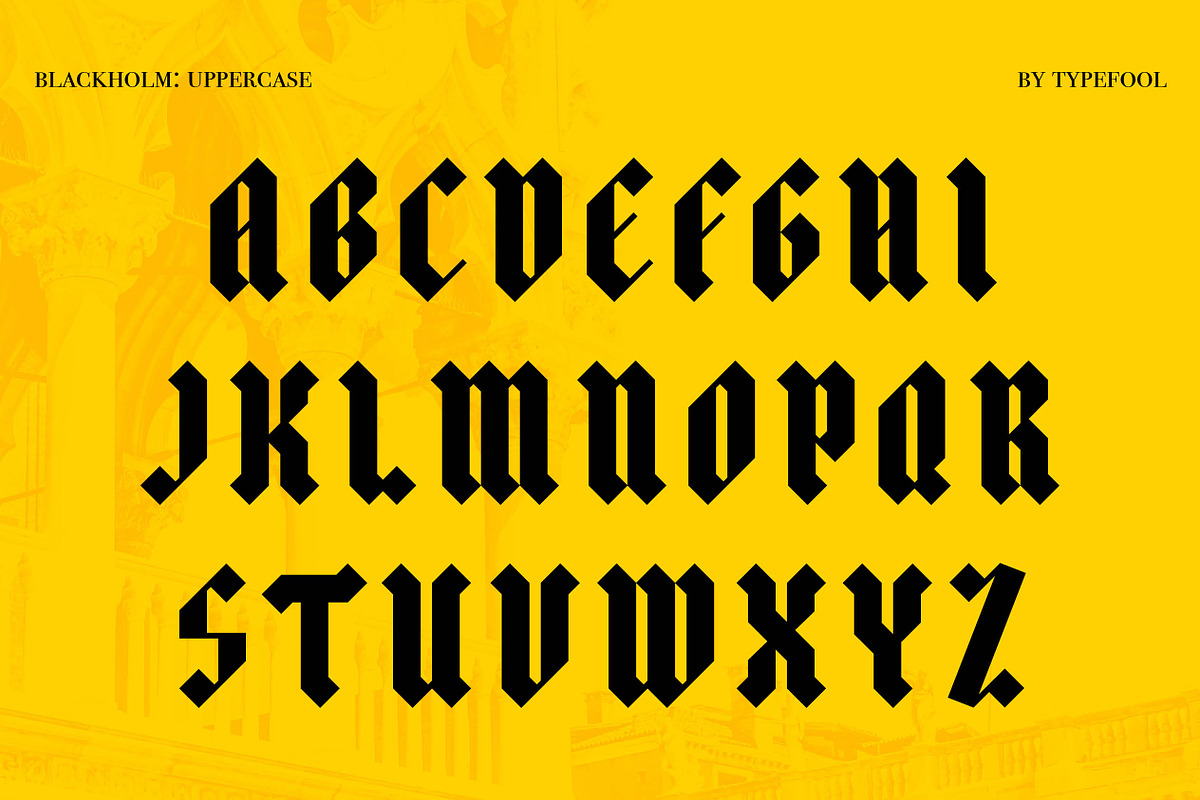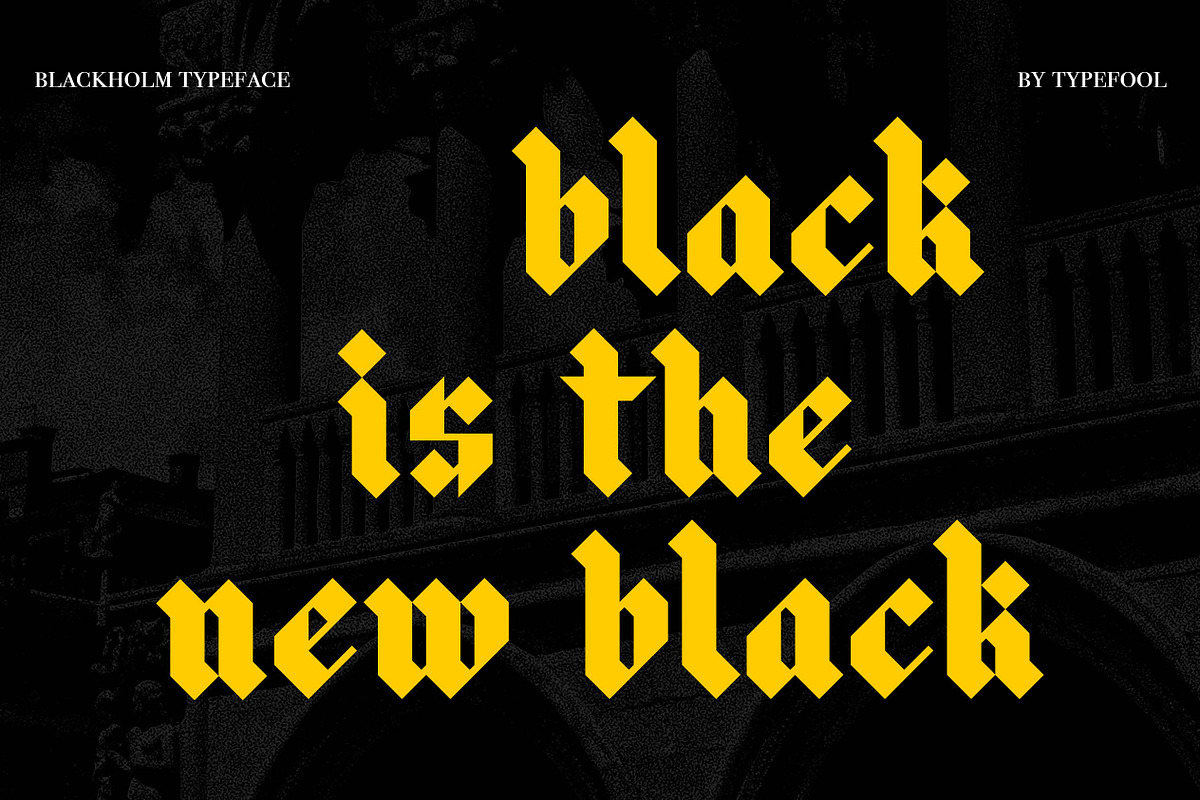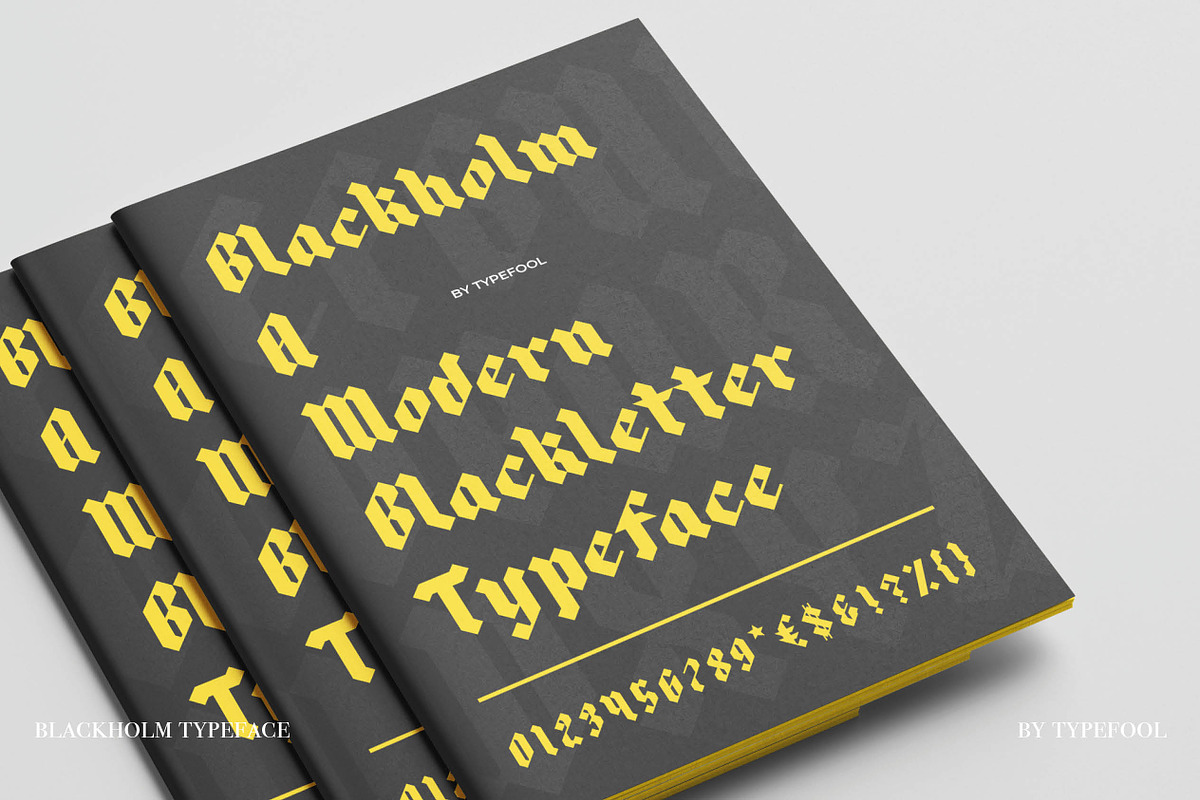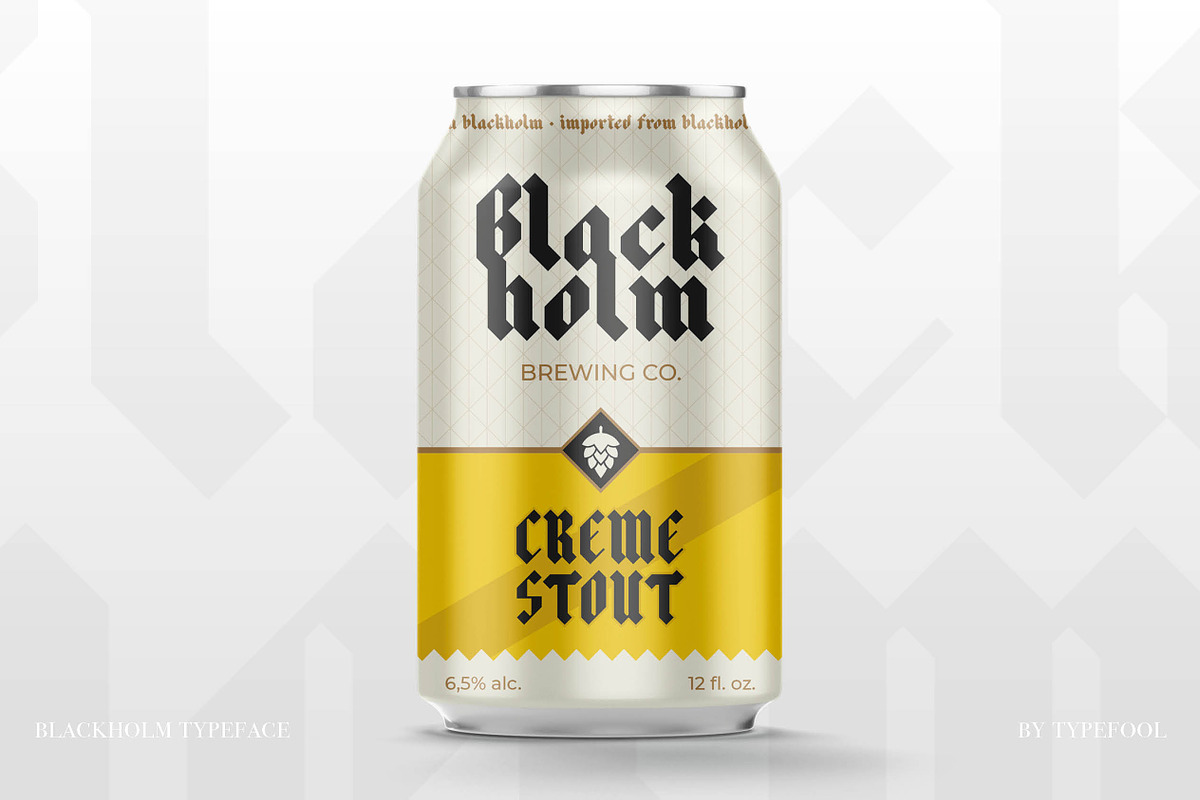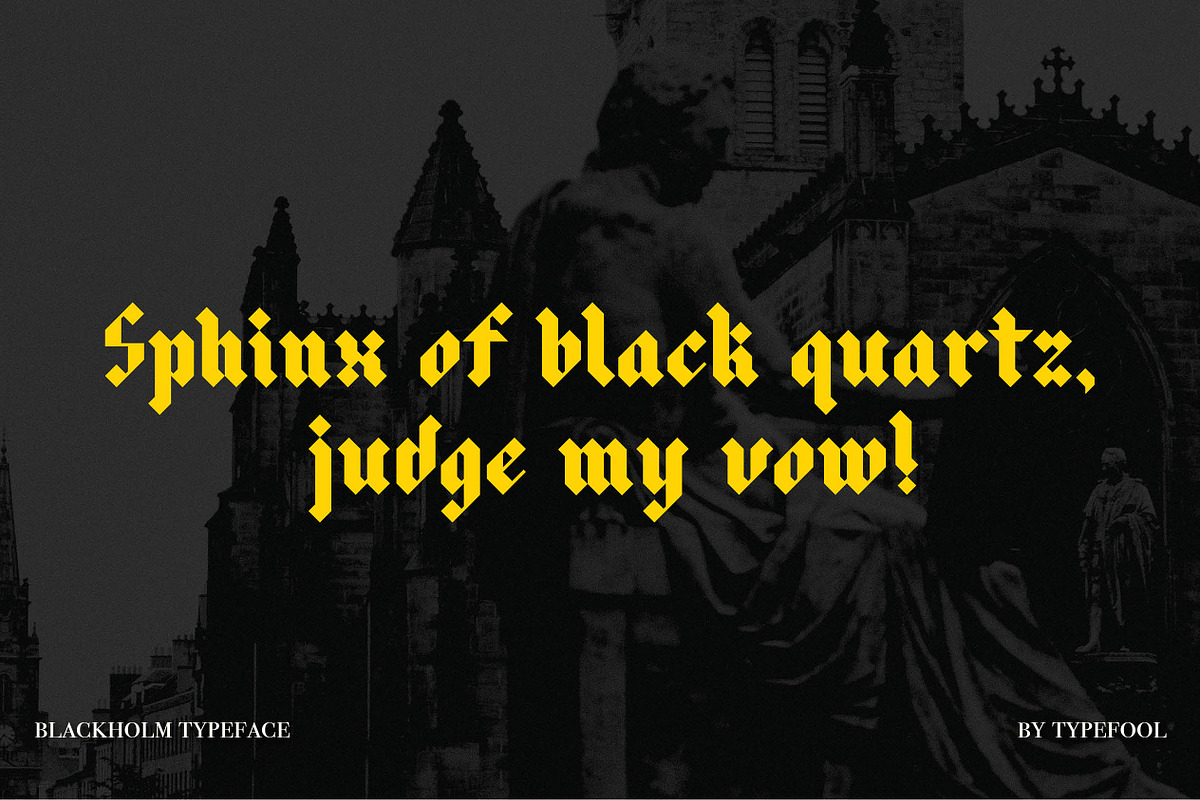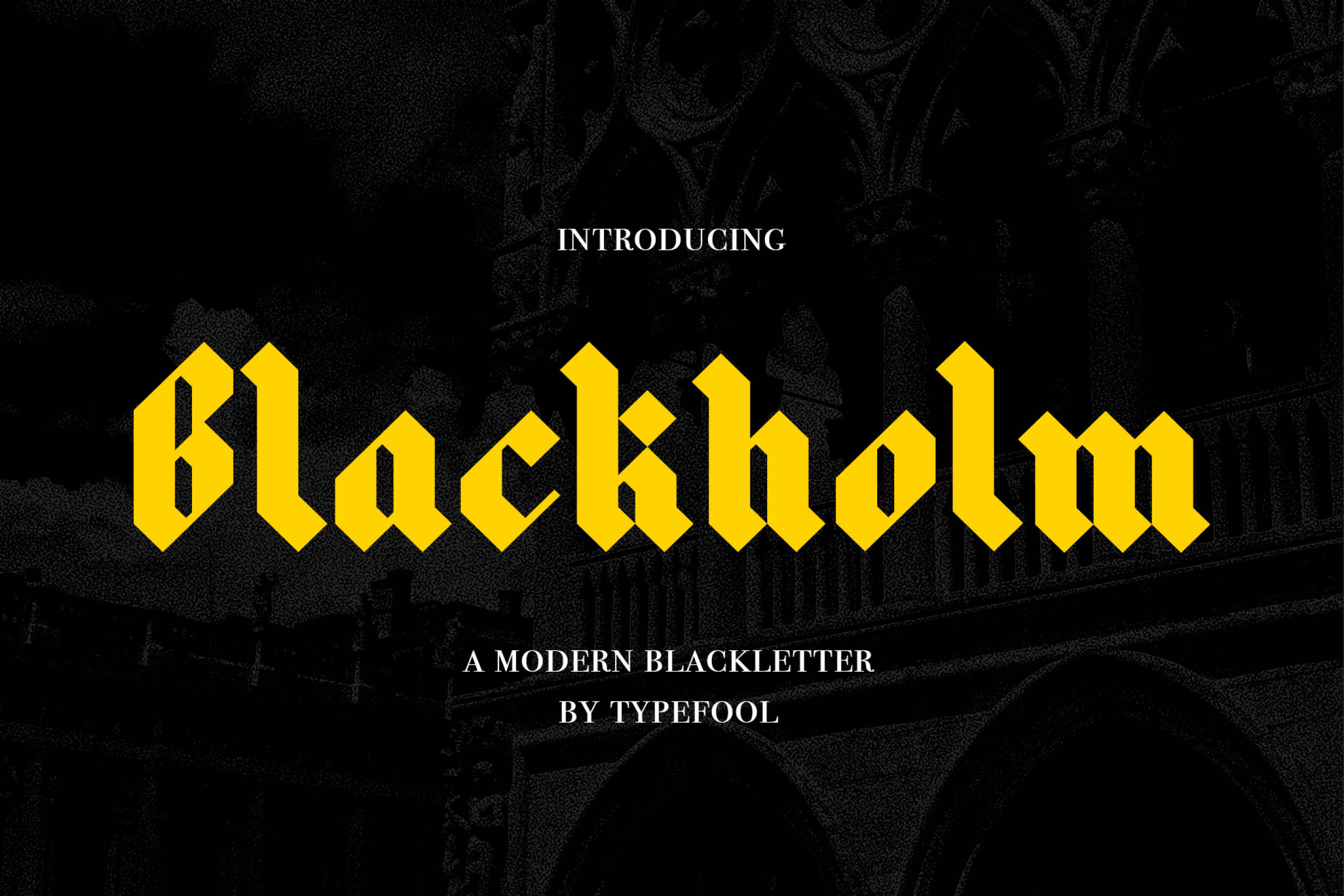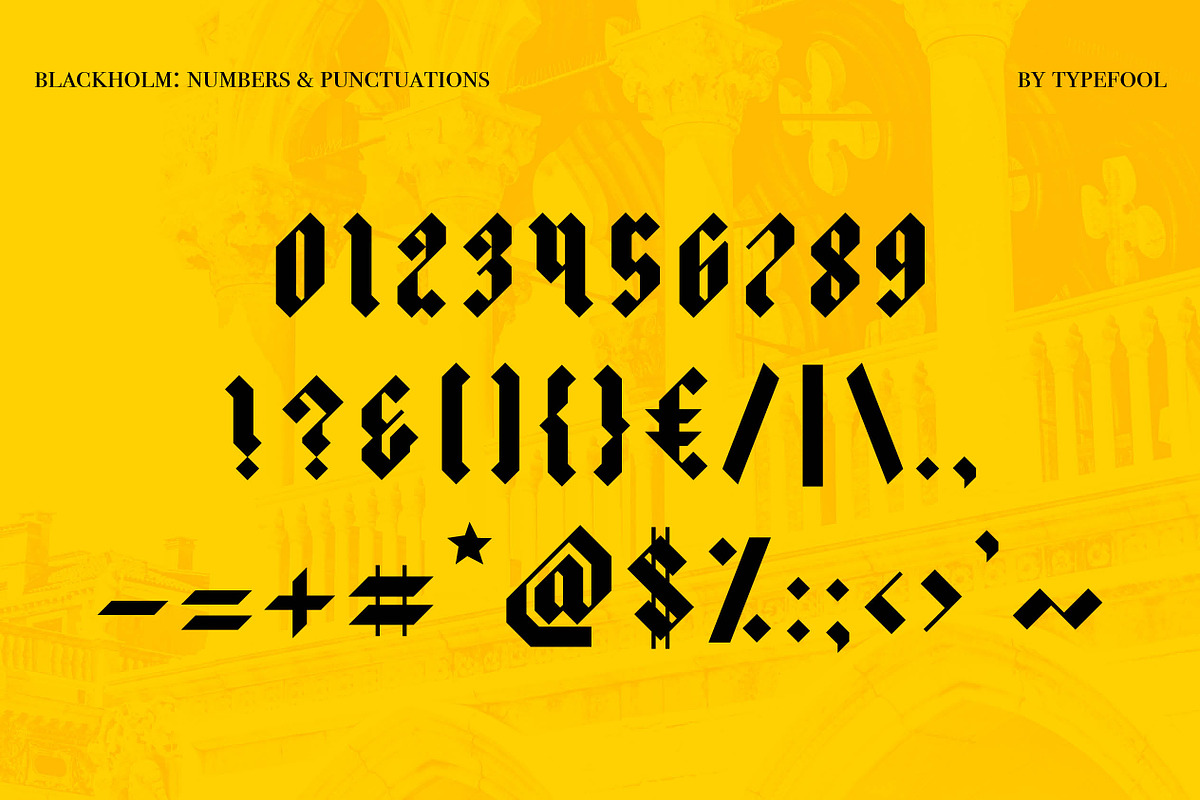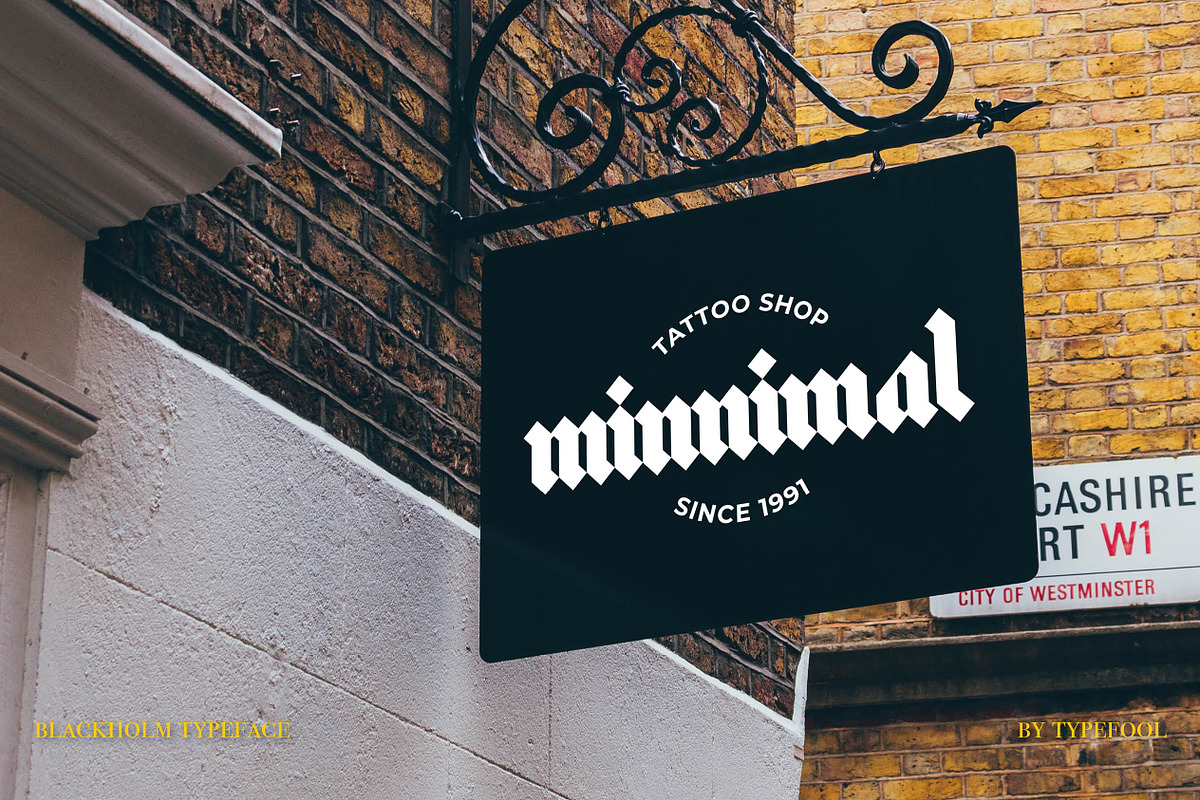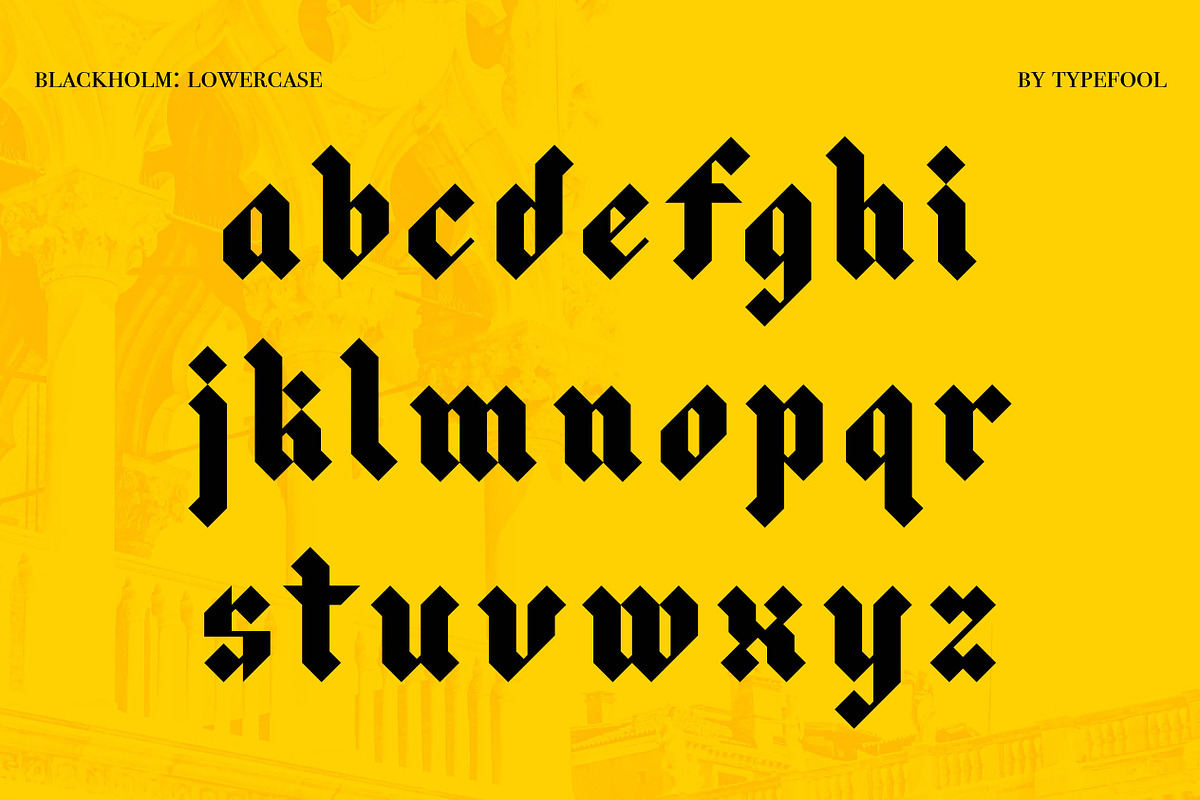
Blackholm - Blackletter font
Blackholm - A modern blackletter
Introducing, Blackholm – A typeface with bold and geometric forms. It is inspired by the old blackletters, Textura & Fraktur combined with modern pure geometric shapes. It is most suited as a decorative branding font for editorials, packaging, product, web, headlines, brand identity, short sentences or branding it is also Ideal for print like billboards, poster advertising. It has uppercase and lowercase display with unique characters, numerals & glyphs.